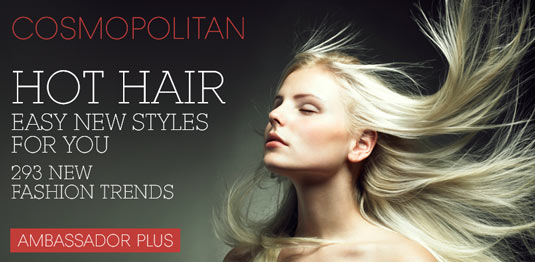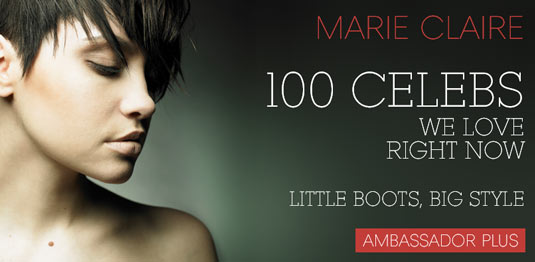
Font of the day: Ambassador Plus
Ambassador Plus from Juraj Chrastina
Ambassador Plus is a hairline display font from Juraj Chrastina. Available from font shop HypeForType, the Ambassador Plus is described as representing "a set of classy typefaces best suitable for magazines, cosmetics packaging, advertising or any kind of fine and sensitive design. The quality of spacing and kerning ensured by Ignio Marini."